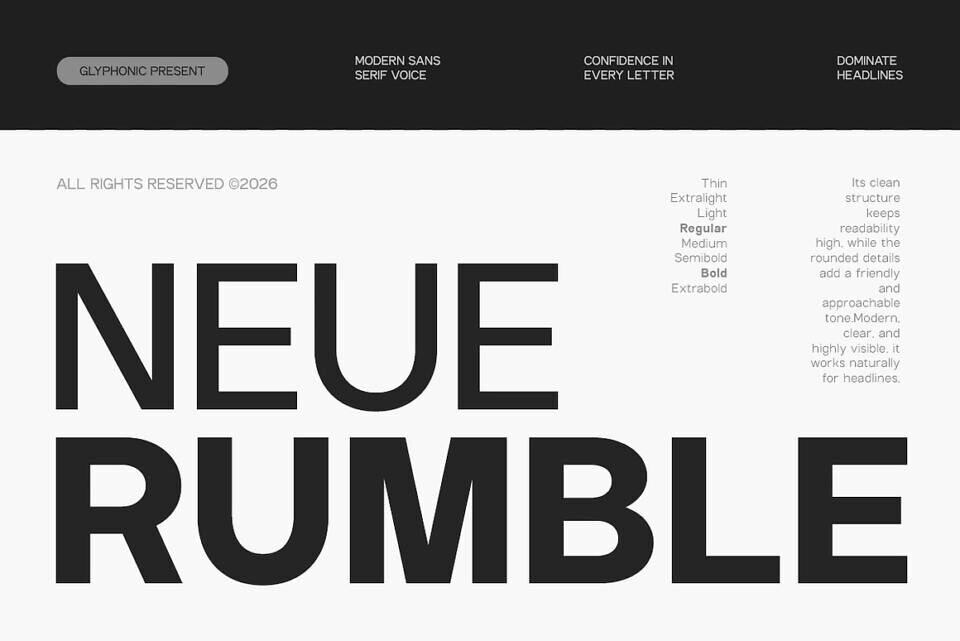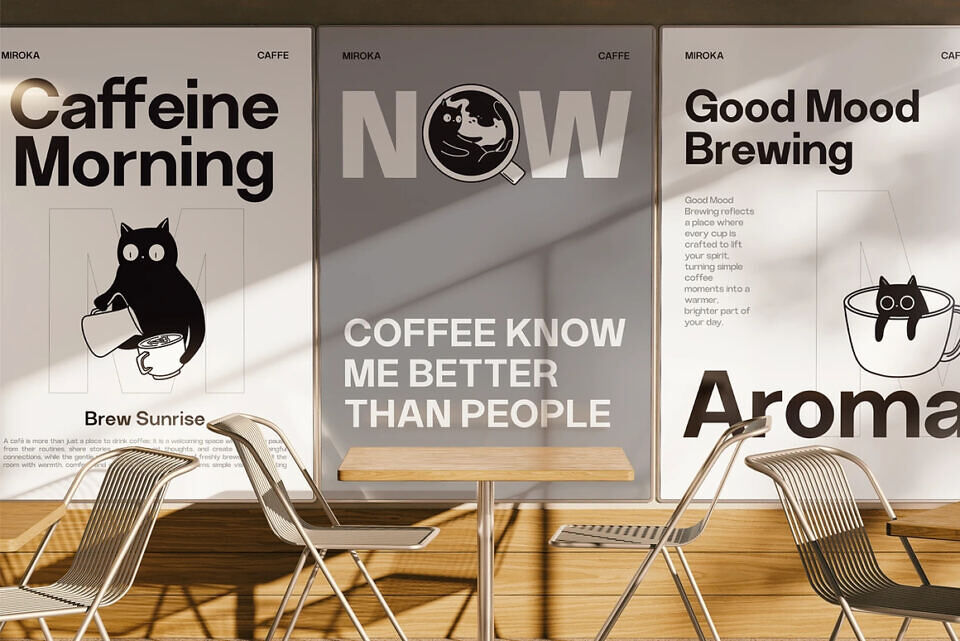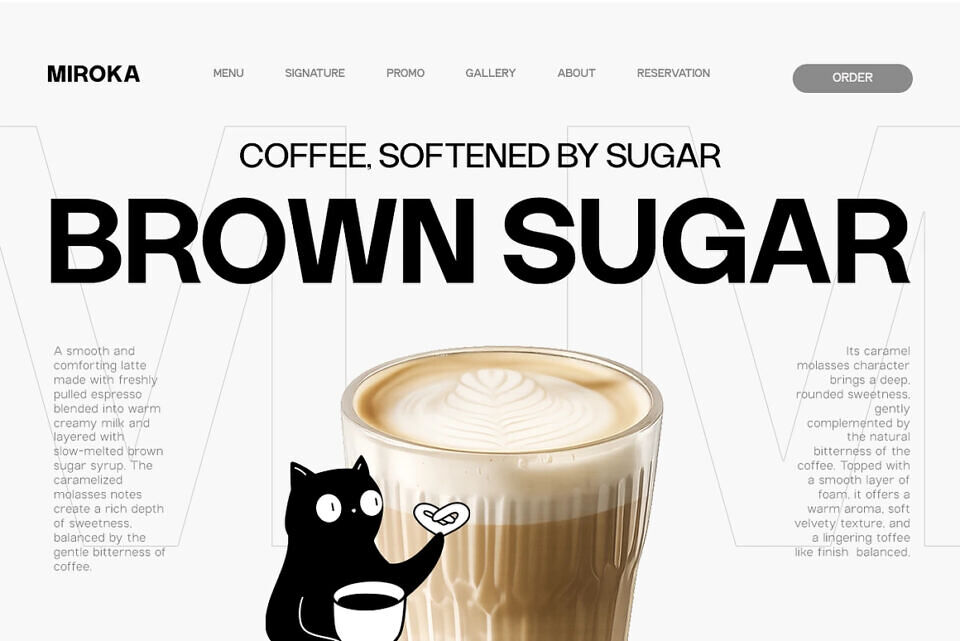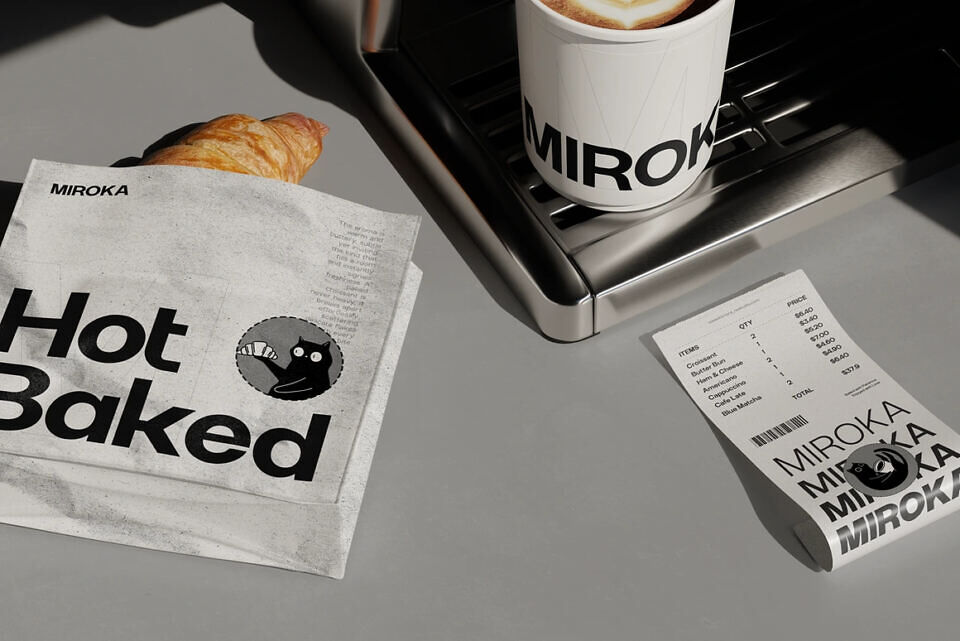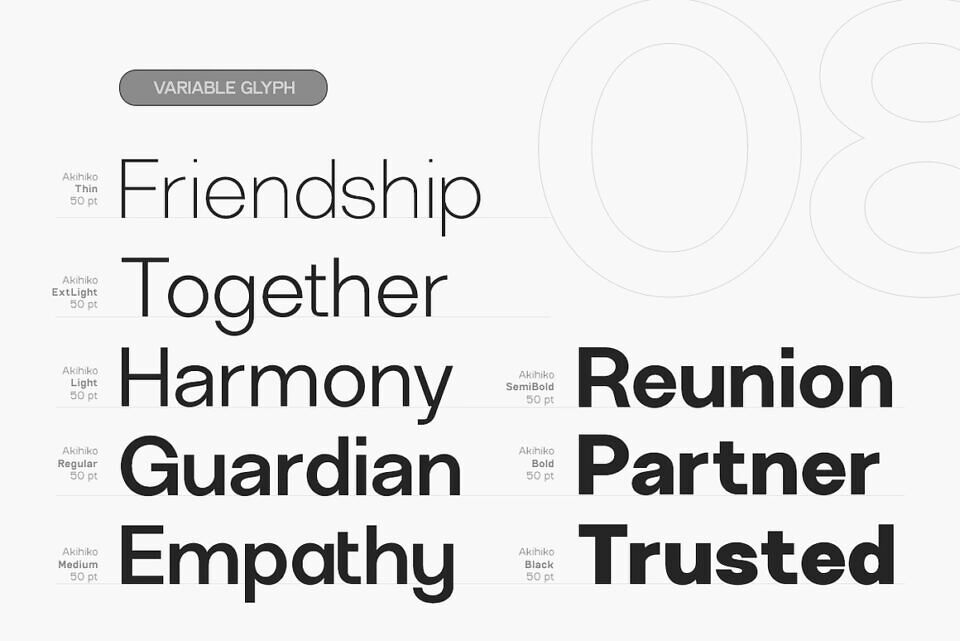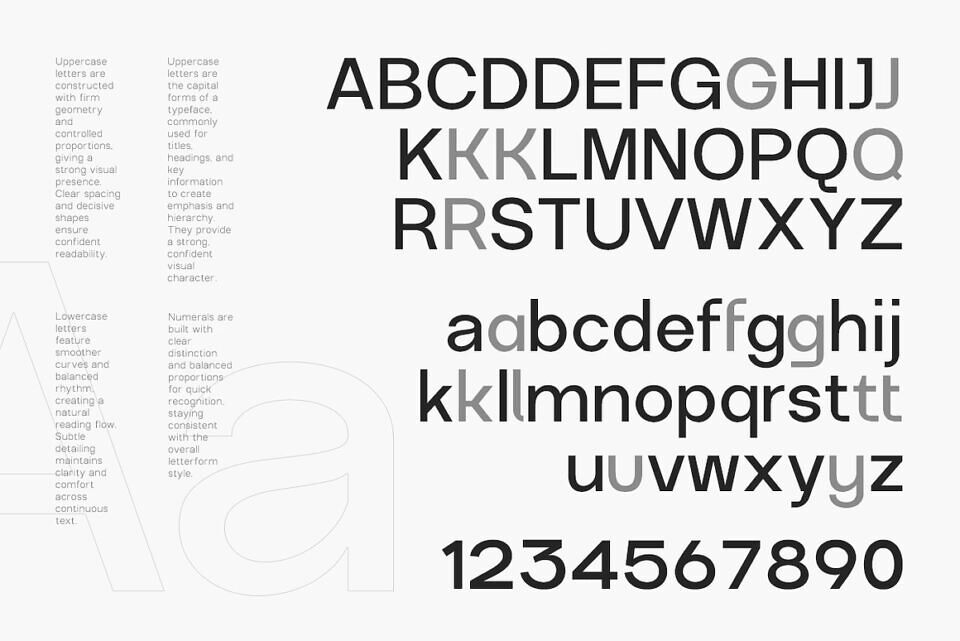
GC Neue Rumble is a contemporary sans serif typeface that blends refined elegance with modern clarity. Designed with balanced proportions and sophisticated detailing, Neue Rumble delivers a clean and graceful typographic voice that feels both timeless and forward-looking.
With its smooth curves, subtle contrasts, and polished structure, GC Neue Rumble is crafted to perform beautifully across both digital and print media. The letterforms carry a sense of elegance without losing modern simplicity, making it ideal for branding, editorial layouts, luxury design, fashion visuals, and high-end creative projects. Whether used for sophisticated headlines, minimalist layouts, or premium branding systems, GC Neue Rumble brings harmony, modern elegance, and subtle strength to your typography.